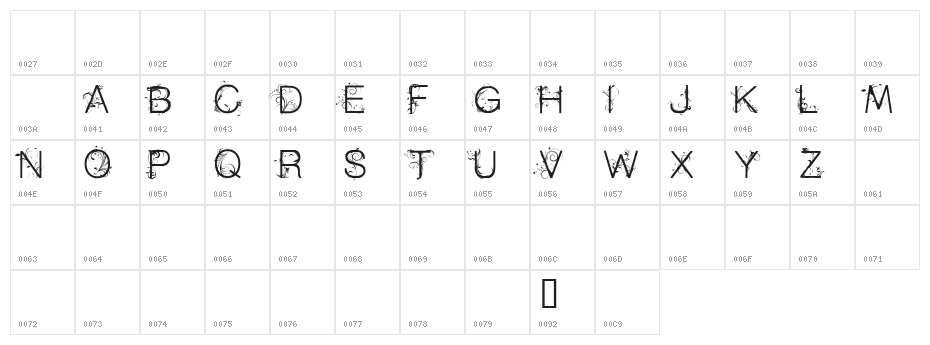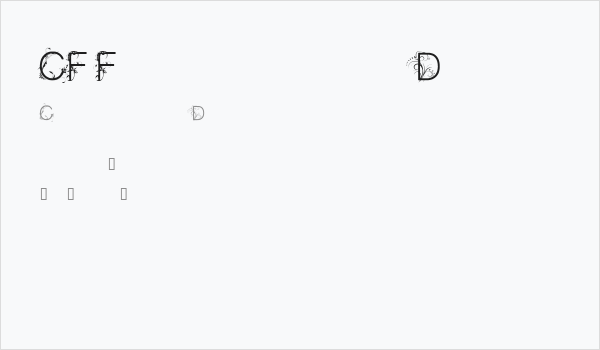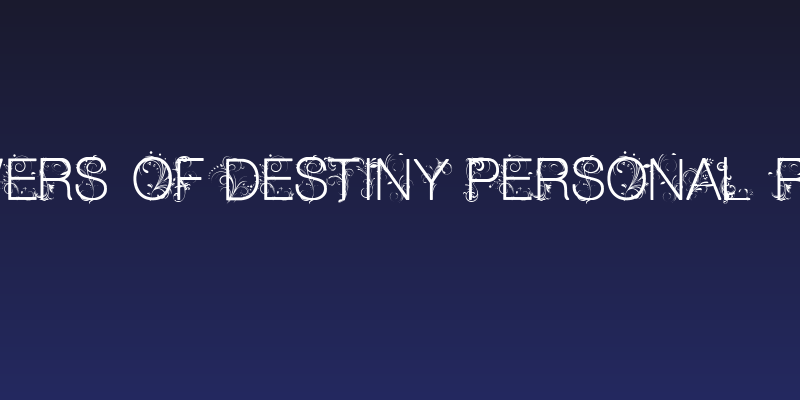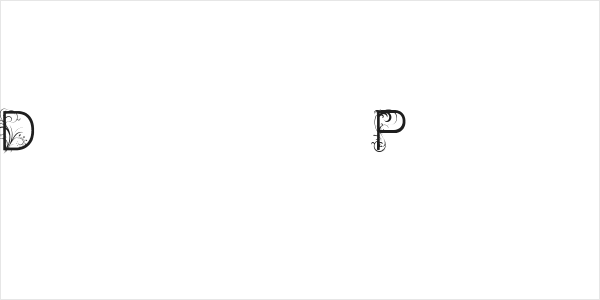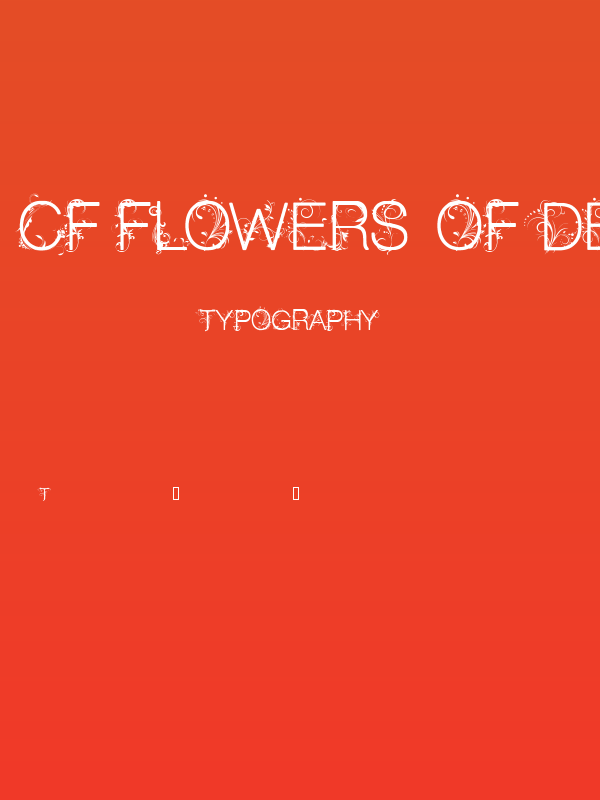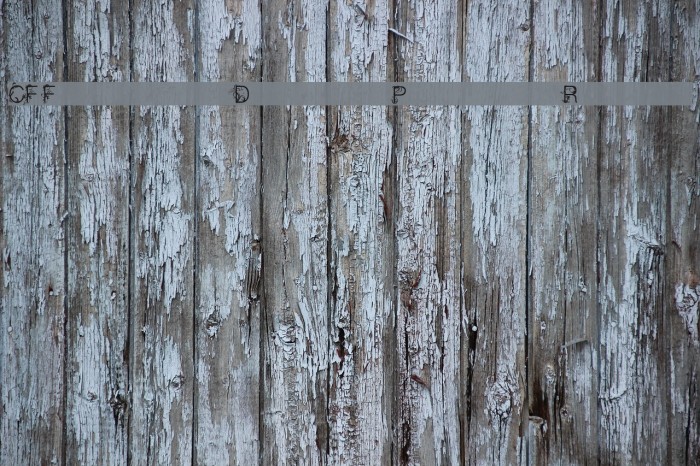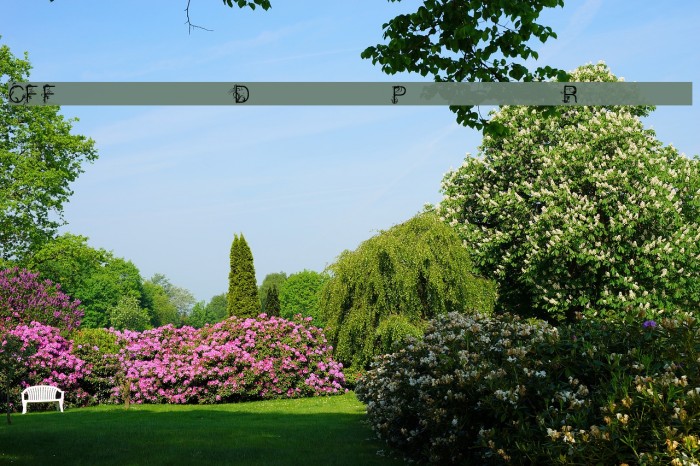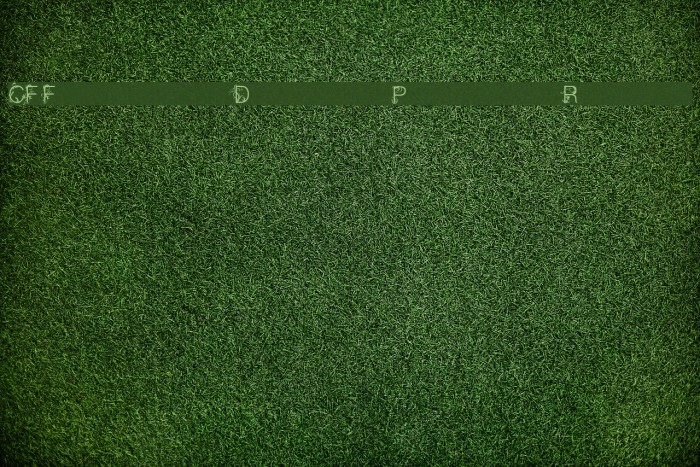
CF Flowers of Destiny Personal Regular Font
CF Flowers of Destiny Personal Regular Description
This font features an ornate and decorative style with intricate floral and vine embellishments integrated into each character. The uppercase letters are particularly elaborate, showcasing a blend of elegance and artistic flair. The design is highly detailed, making it suitable for projects that require a touch of sophistication and creativity. The font's unique aesthetic is ideal for creating eye-catching titles and headings, where the decorative elements can be fully appreciated. Its artistic nature makes it less suitable for body text, but perfect for special occasions and themed designs.
| Proposed Projects | Ideal for wedding invitations, greeting cards, event posters, and decorative headings. |